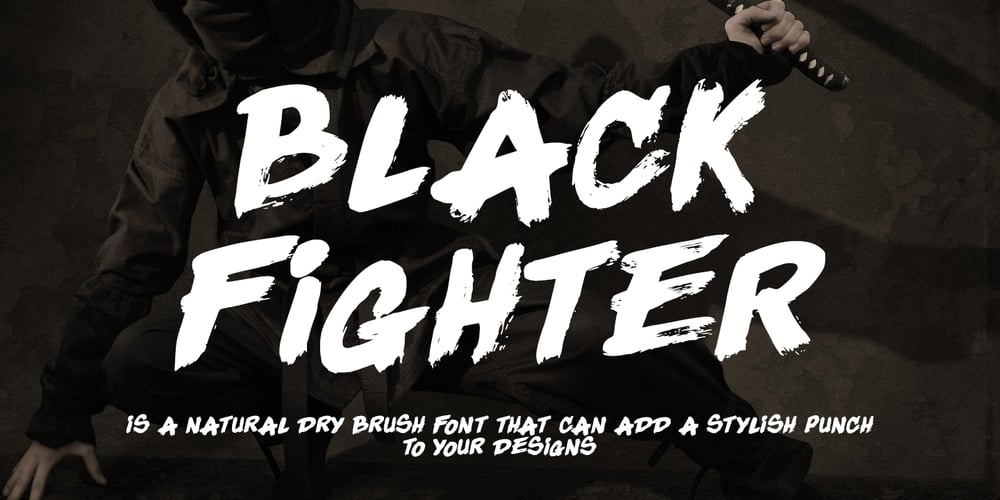
Black Fighter
Black Fighter font
Black Fighter Font Family was designed by Thomas Aradea and published by Letterara. Black Fighter contains 1 styles and family package options. Black Fighter is a natural dry brush font in Sans and Serif that can add a stylish punch to your designs. This font family has a striking look and a good flow. It’s perfect for logos, quotes, posters, for clothing, and every other design which needs a unique touch. Features : – Upper Case – Numerals – Punctuations (OpenType Standard) – Works on PC & Mac – Simple installations – Accessible in the Adobe Illustrator, Adobe Photoshop, Adobe InDesign, even works on Microsoft Word.